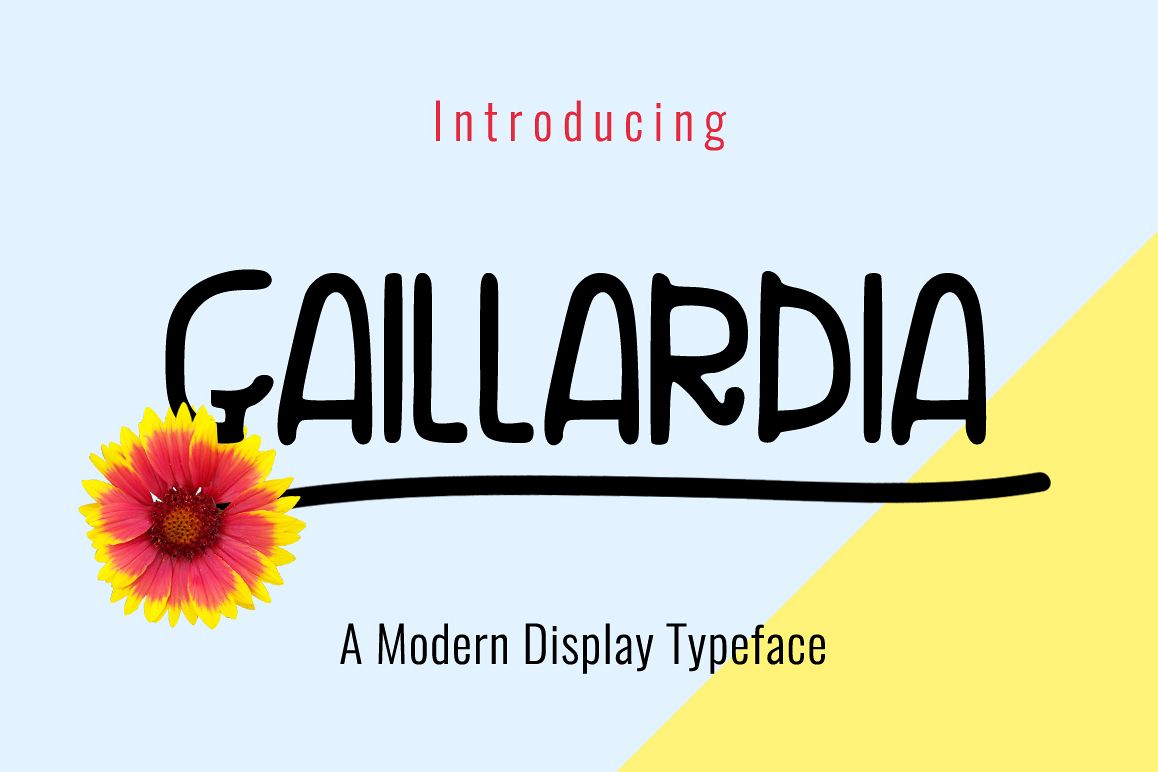
Introducing Gaillardia!
Gaillardia is a new & modern handmade font. Gaillardia is perfectly suited to stationery, logos, t-shirt, paper, print design, website header, photo frame, flyer, music cover, poster, image slider and much more.Features: